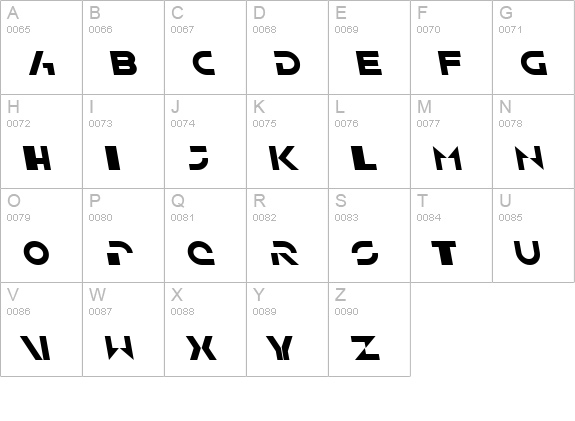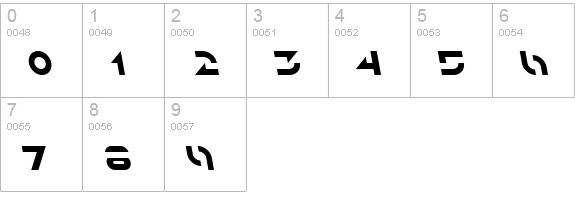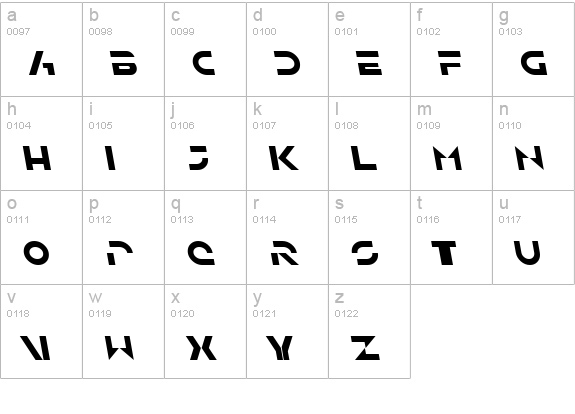
SF Solar Sailer Italic Font Details
SF Solar Sailer Italic is a distinctive, italic variant in the SF typeface family \xE2\x80\x94 well suited to design and typography projects.
SF Solar Sailer Italic font is an exquisite and futuristic typeface that captures the essence of space exploration and intergalactic journeys. With its sleek and streamlined design, this font is perfect for conveying a sense of adventure, innovation, and forward-thinking. The italic styling of SF Solar Sailer adds a dynamic and energetic touch to your designs, making it ideal for capturing attention and creating a modern look. Whether you're designing a sci-fi movie poster, a tech-related logo, or a futuristic website, this font will elevate your work to a whole new level. But what makes SF Solar Sailer Italic font truly remarkable is that it is freely available to download at FontsMarket.com. Yes, you read that right – this high-quality font can be yours without spending a dime. We believe that creativity should be accessible to all, and that's why we're offering this font for free. So, whether you're a professional designer looking to add a touch of uniqueness to your projects or an individual with a passion for typography, SF Solar Sailer Italic font is the perfect choice. With its striking appearance and the fact that it won't cost you a penny, this font is sure to become a favorite in your collection. Download SF Solar Sailer Italic font today from FontsMarket.com and embark on a journey of creativity and innovation. Let your designs soar to new heights with this stunning typeface that is both visually captivating and freely available. Don't miss out on this incredible opportunity to elevate your design game – get SF Solar Sailer Italic font now!